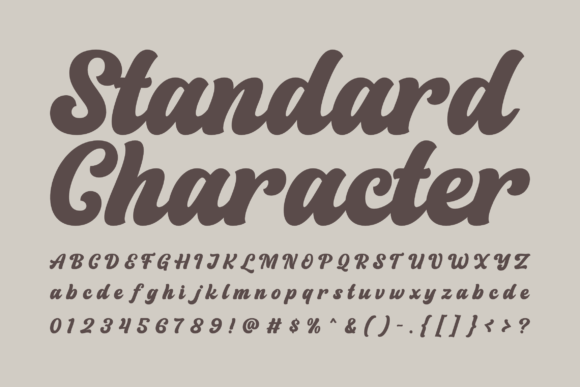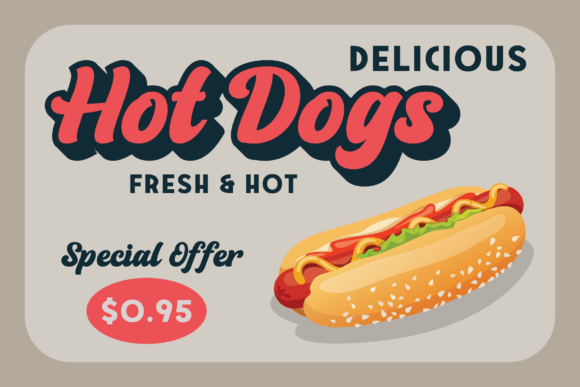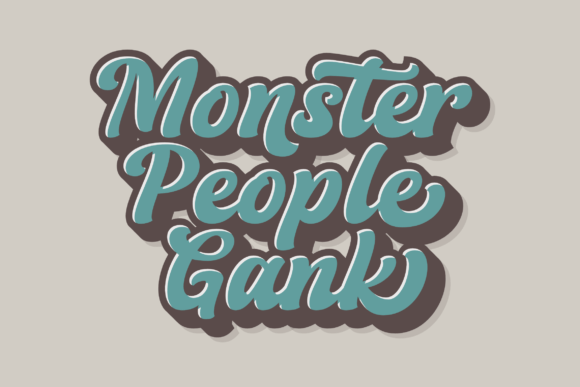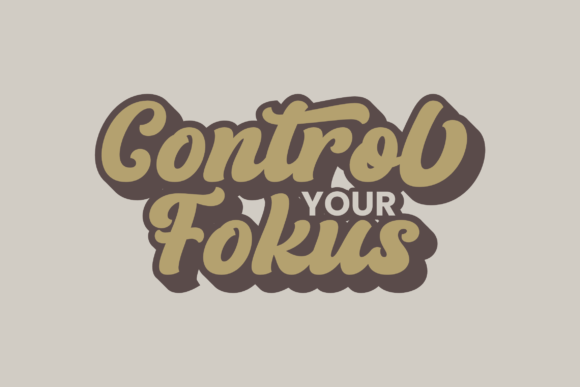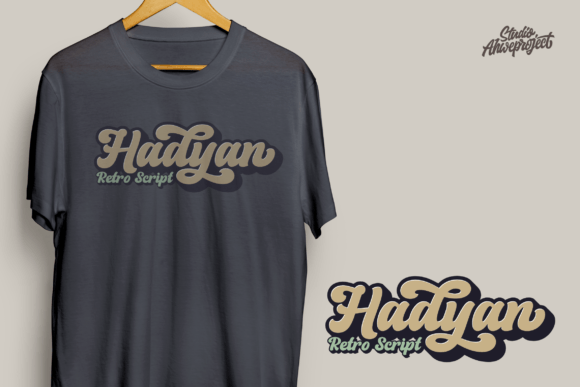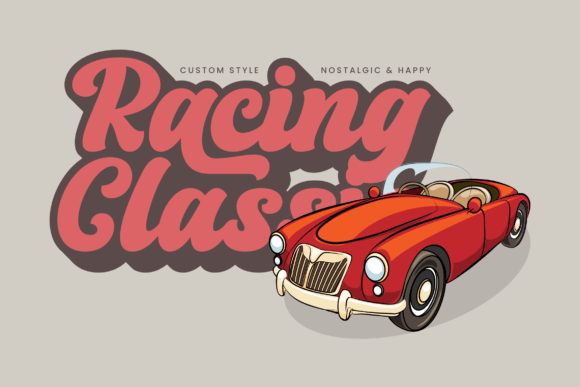
Introducing Hadyan Font: The Ultimate Retro-Styled Handwritten Font for Designers and Crafters
In the world of typography, fonts play a crucial role in conveying the tone and personality of a design. For designers and crafters looking to add a touch of nostalgia and personality to their work, Hadyan Font is an excellent choice. This bold and retro-styled handwritten font is designed to make a statement, reading as strong, confident, and dynamic. In this article, we’ll dive into the features and benefits of Hadyan Font, and explore how it can elevate your designs to the next level.
A Bold and Confident Font for Your Designs
Hadyan Font is a bold and eye-catching font that is perfect for designers and crafters who want to make a statement. Its retro-styled handwritten design gives it a unique and nostalgic feel that is sure to grab the attention of your audience. Whether you’re working on vintage-inspired posters, stickers, apparel, or social media posts, Hadyan Font is the perfect choice. Its bold and confident design ensures that your message will be heard loud and clear, making it an excellent choice for designers who want to create a lasting impression.
Adding Nostalgic Character to Your Designs
One of the standout features of Hadyan Font is its ability to add tons of nostalgic character to your designs. The font’s retro-styled design takes inspiration from classic typography, evoking memories of a bygone era. By incorporating Hadyan Font into your designs, you can create a sense of nostalgia and timelessness that will resonate with your audience. Whether you’re working on a project that requires a vintage feel or simply want to add some character to your design, Hadyan Font is an excellent choice.
Hadyan Font is PUA encoded, which means that you can access all of the glyphs and swashes with ease. This makes it easy to customize your designs and add unique touches that set your work apart. With PUA encoding, you can access a wide range of glyphs and swashes, giving you the flexibility to experiment with different design ideas. Whether you’re a seasoned designer or just starting out, Hadyan Font’s PUA encoding makes it easy to get the most out of your designs.
Hadyan Font is a versatile font that can be used for a wide range of design projects. Its bold and confident design makes it perfect for vintage-inspired posters, stickers, and apparel. The font’s nostalgic character also makes it an excellent choice for social media posts, blog headers, and other digital designs. Whether you’re working on a personal project or a client’s design brief, Hadyan Font is a great choice for any design project that requires a bold and eye-catching font.
Tips for Using Hadyan Font in Your Designs
To get the most out of Hadyan Font, here are a few tips to keep in mind:
- Use Hadyan Font as a headline font to grab attention and add a touch of nostalgia to your designs.
- Experiment with different glyphs and swashes to add unique touches to your designs.
- Pair Hadyan Font with other fonts to create a bold and eye-catching design.
- Use Hadyan Font for body text to add a touch of personality to your designs.
In conclusion, Hadyan Font is a bold and retro-styled handwritten font that is perfect for designers and crafters looking to add a touch of nostalgia and personality to their work. Its strong and confident design makes it perfect for vintage-inspired posters, stickers, apparel, and social media posts. With its PUA encoding and wide range of glyphs and swashes, Hadyan Font is a versatile font that can be used for a wide range of design projects. Whether you’re a seasoned designer or just starting out, Hadyan Font is an excellent choice for any design project that requires a bold and eye-catching font.